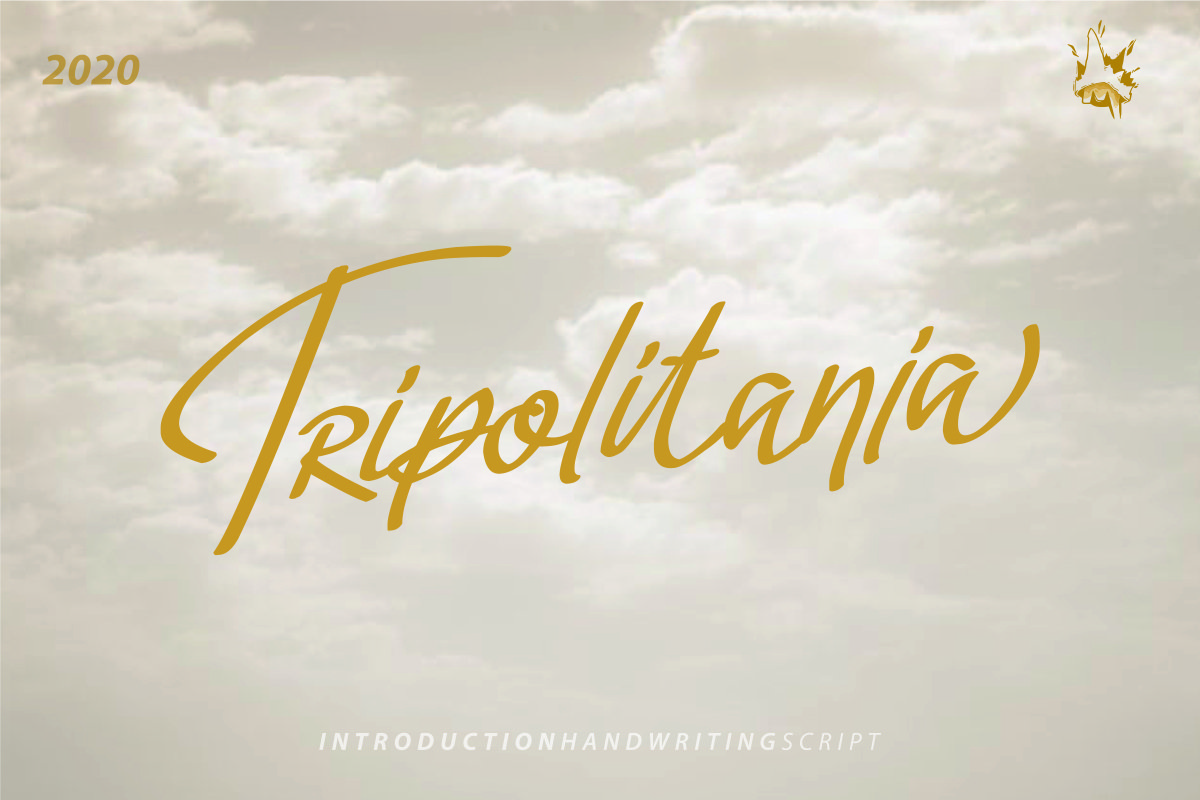
Tripolitania Stylish Handwritting Script Font
Tripolitania Script
Introducing: Tripolitania Stylish Script Font
A
script font with a smooth handwritten style. Comes with 400 glyphs. Tripolitania is perfect for branding projects, homeware designs, product
packaging, use in name card, invitation cards, etc. Simply as a stylish
text overlay to any background image or anything requiring a sprinkle of
elegance.